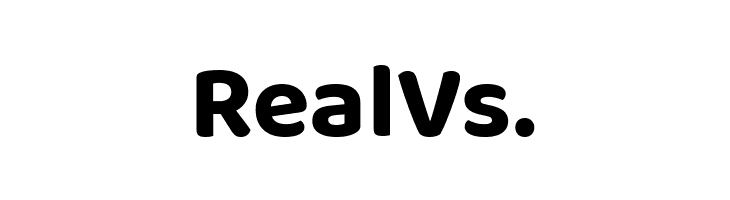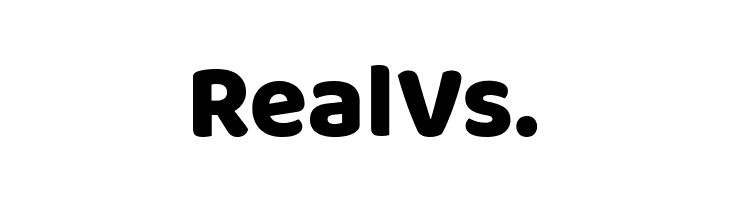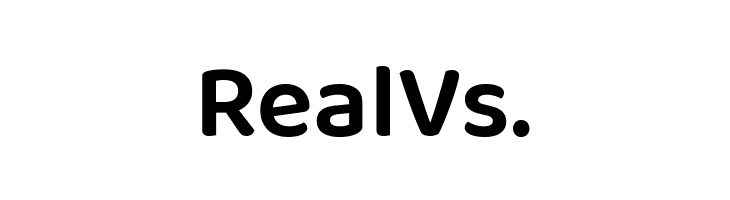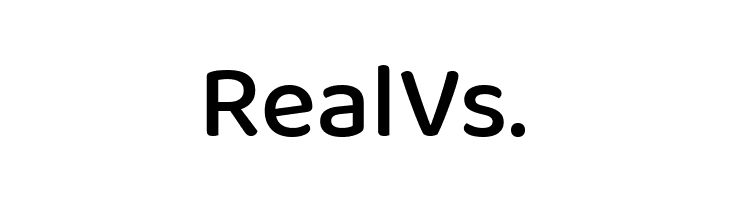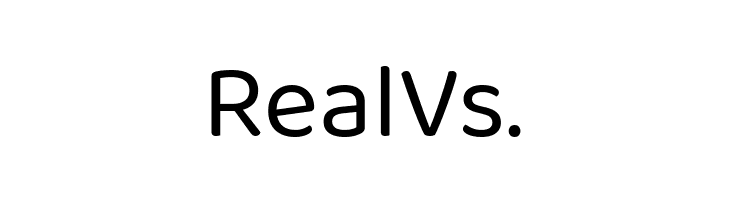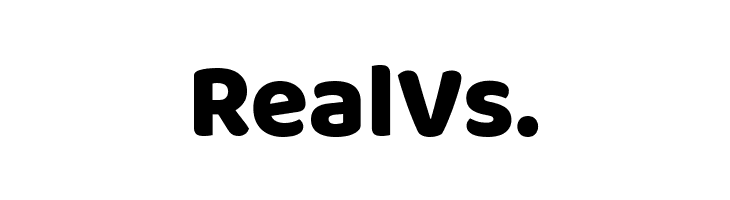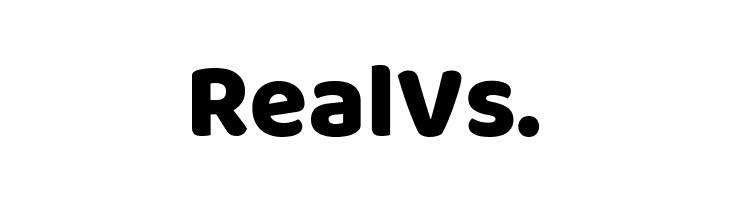
A playful, rounded font with a modern and friendly appearance.
A playful, rounded font with smooth curves and a friendly appearance.
A playful, rounded, and bold font with a friendly and modern appearance.
A bold, rounded font with a playful and friendly appearance.
A bold, rounded, and playful font with smooth curves and consistent stroke width.
A bold, rounded font with a playful and friendly style.
A playful, rounded font with smooth curves and a friendly appearance.
A playful, rounded typeface with smooth curves and a friendly appearance.
A playful, rounded font with smooth curves and a friendly appearance.
A bold, rounded, and playful font with a modern and friendly appearance.
A playful, rounded font with a bold and friendly appearance.
A bold, rounded font with a playful and friendly style.
A playful, bold font with rounded edges and a friendly design.
A playful, rounded font with smooth curves and a friendly appearance.
A friendly, rounded font with a playful and modern aesthetic.
A playful, rounded font with smooth curves and a friendly appearance.
A playful, rounded font with a bold and friendly appearance.
A bold, rounded font with smooth curves and a friendly appearance.
A bold, rounded, and playful font with a modern and friendly style.
A playful, rounded font with smooth curves and a friendly appearance.
A playful, rounded font with a modern and friendly appearance.
A playful, rounded font with bold, smooth curves and a friendly appearance.
A bold, rounded, and playful font with a modern and friendly appearance.
A playful, rounded font with a bold and friendly appearance.
A playful, rounded font with bold, uniform strokes and smooth curves.
A bold, rounded font with smooth curves and a friendly appearance.
A bold, rounded typeface with a playful and friendly appearance.
A friendly, rounded font with a modern and approachable design.
A playful, rounded font with smooth curves and a modern feel.
A playful, rounded font with smooth curves and a friendly, modern appearance.
A playful, rounded font with bold, smooth curves and a modern, informal style.
A bold, rounded, and friendly font with a modern aesthetic.
A bold, rounded, and playful font with a modern and friendly appearance.